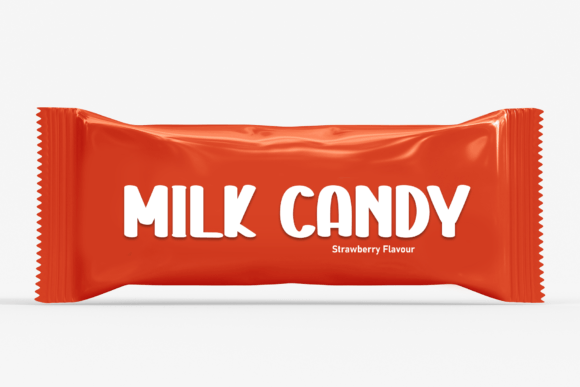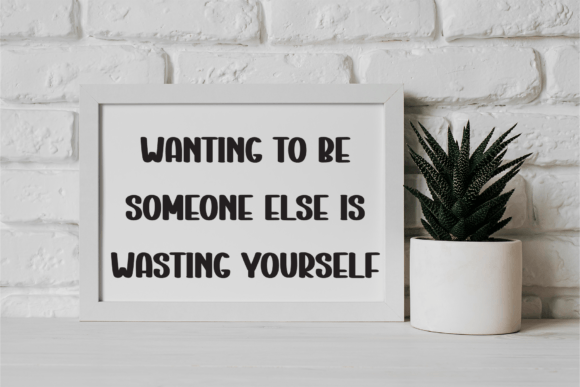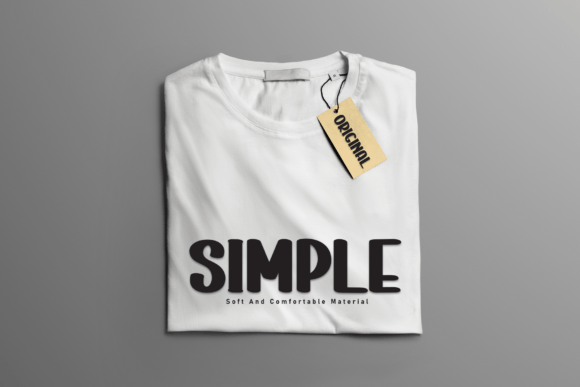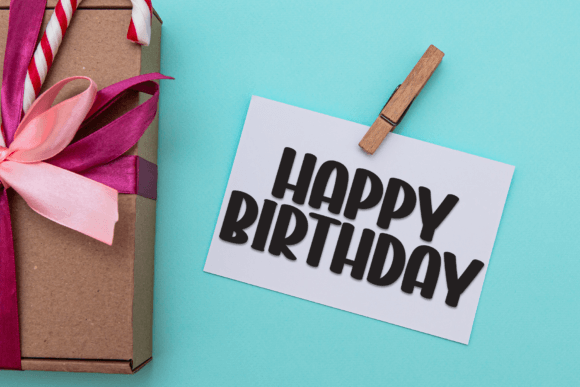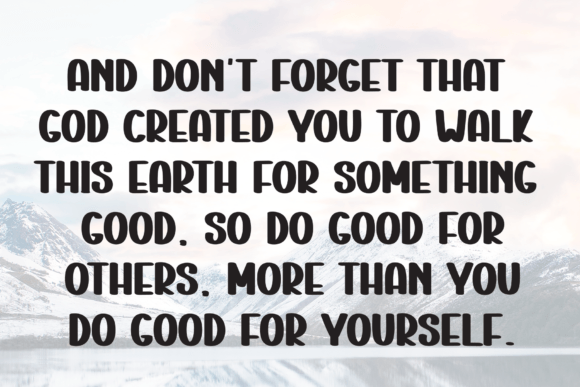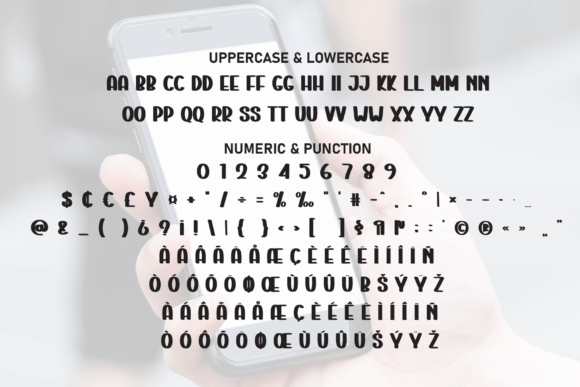
Smart Phone Font – Free Download
Introduction to Smart Phone Font
Smart Phone is a neat and casual sans-serif font that embodies simplicity and readability.
With its clean lines and friendly character, it’s perfect for user interfaces, informative signage, and modern branding Whether for digital or print, this font ensures your message stands clear and approachable.
Key Features of Smart Phone Font
Why Choose Smart Phone Font?